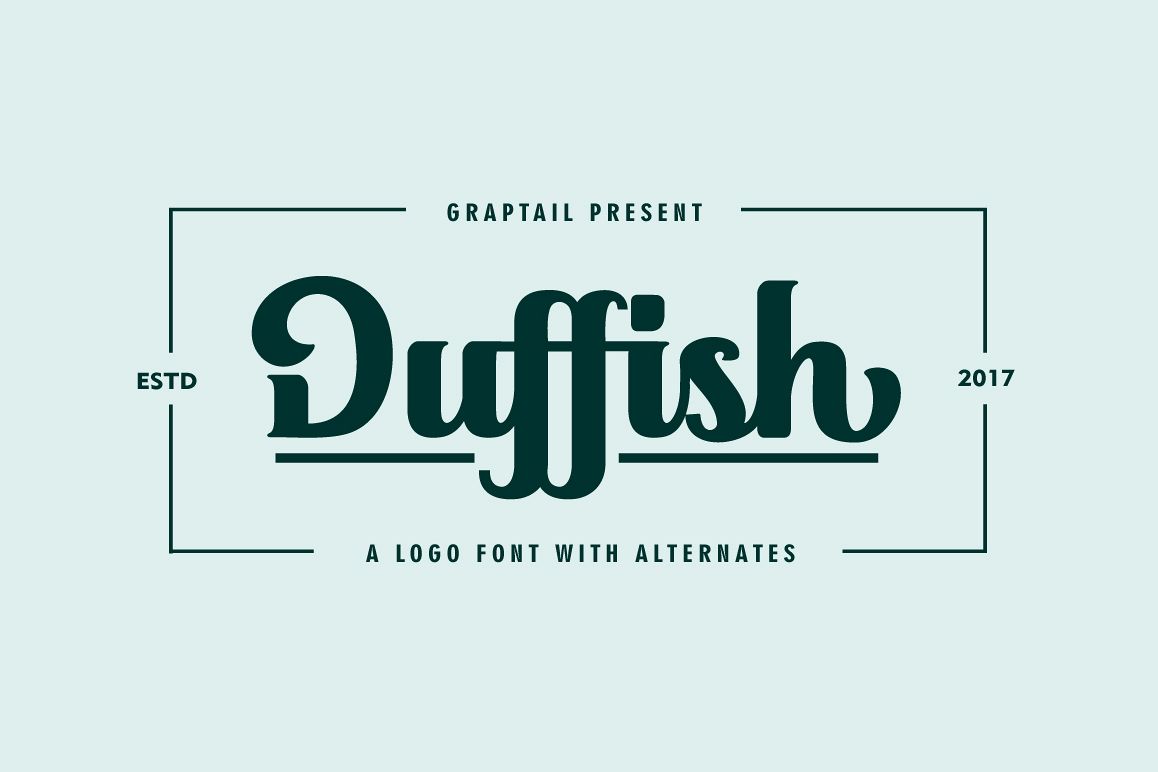
Duffish - Logo Font
Duffish is the shape of the letters script bold. This font is inspired from the logotype form of companies that showcase the beauty of every letter form. Duffish come with a variety of alternates that can be combined to produce a form of liking such as logos, fashion, Product, Packing, Website, apparel, stationery, magazines, film, books and marketing.Also supported PUA encoded. Simply copy and paste the alternate characters using the Character Map (Windows), Font Book (Mac) or a software program such as PopChar (for Windows and Mac).FILE INCLUDED: